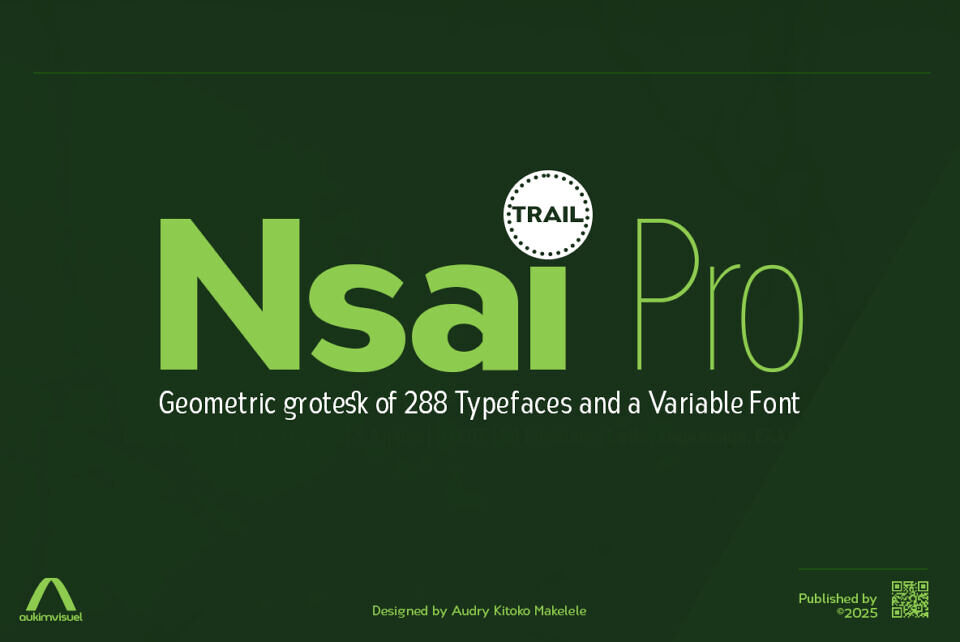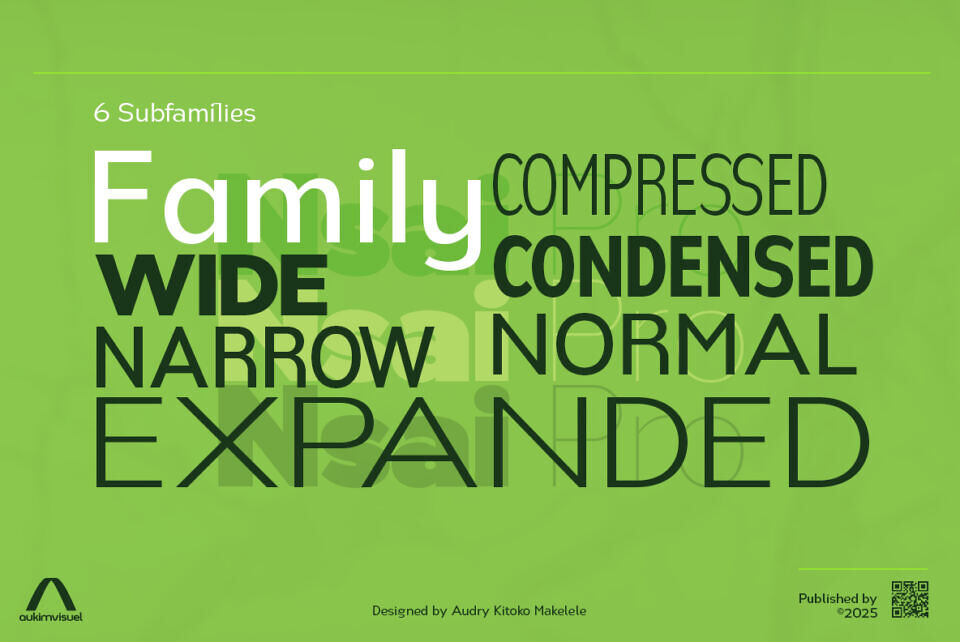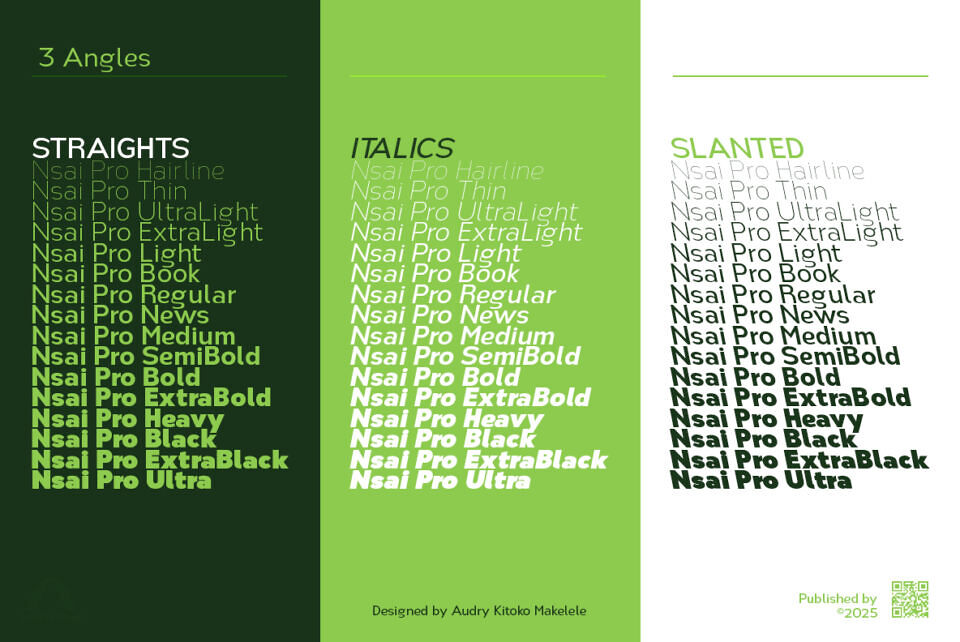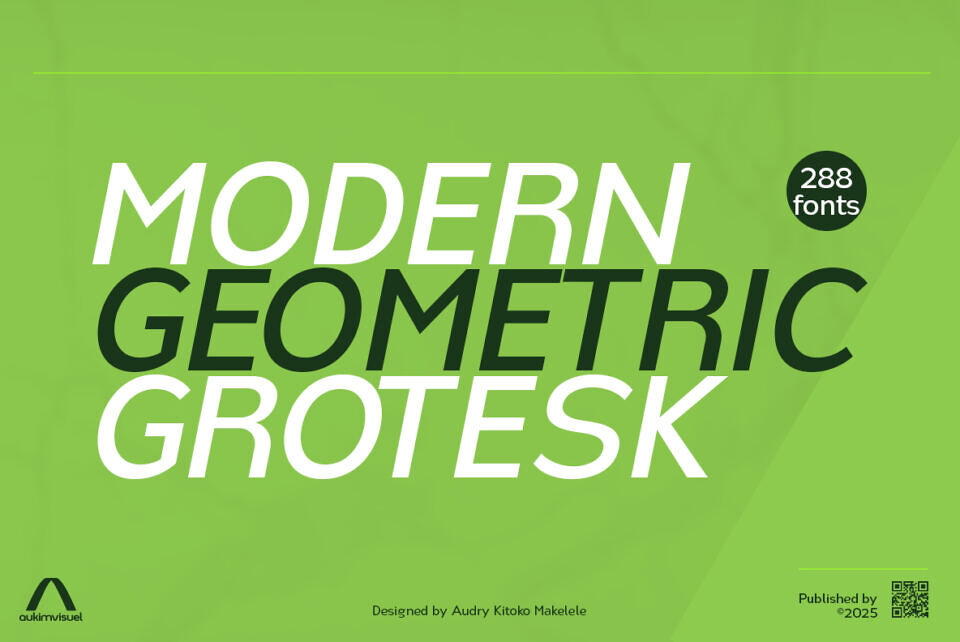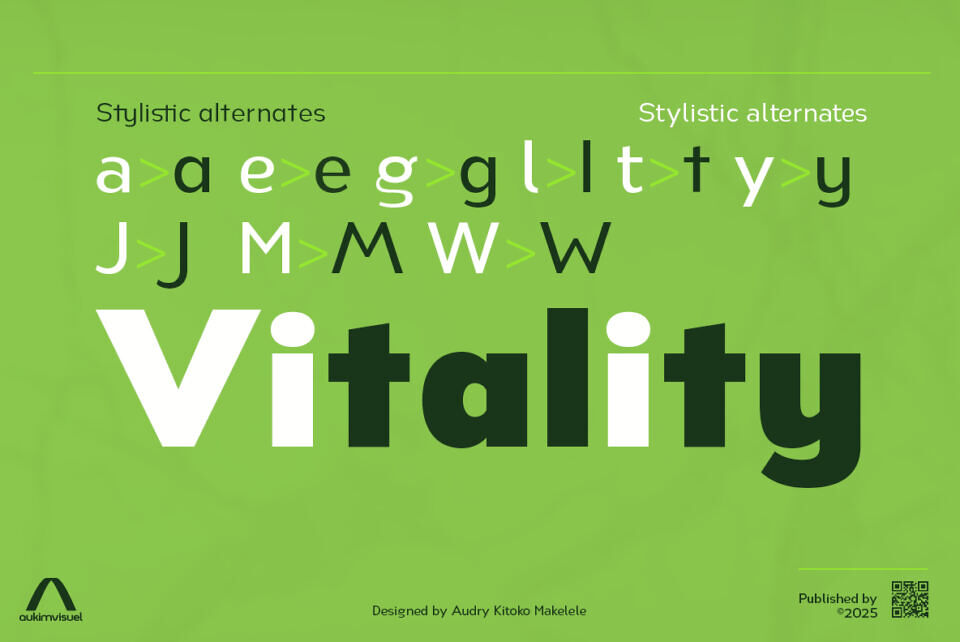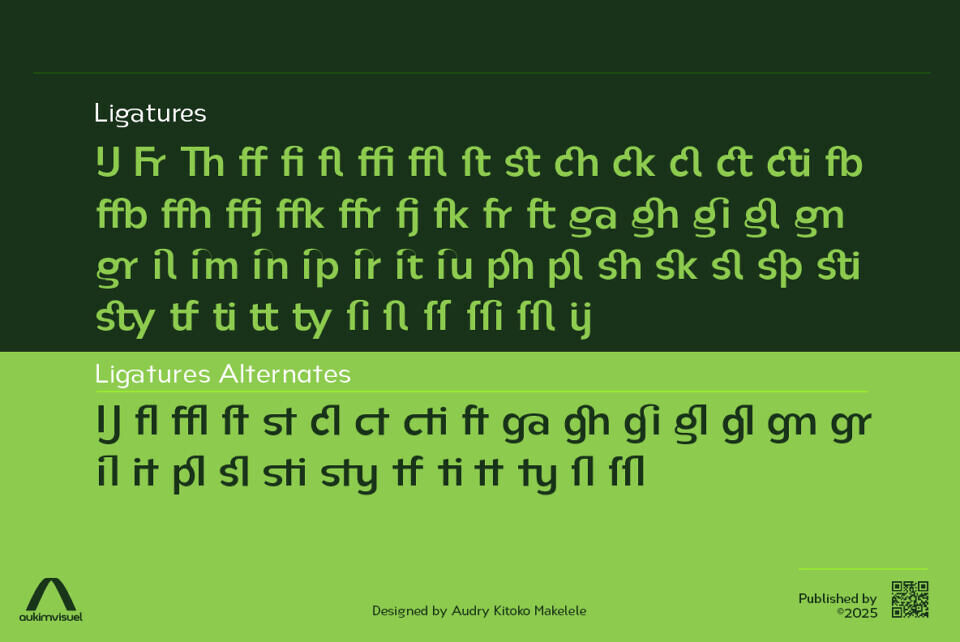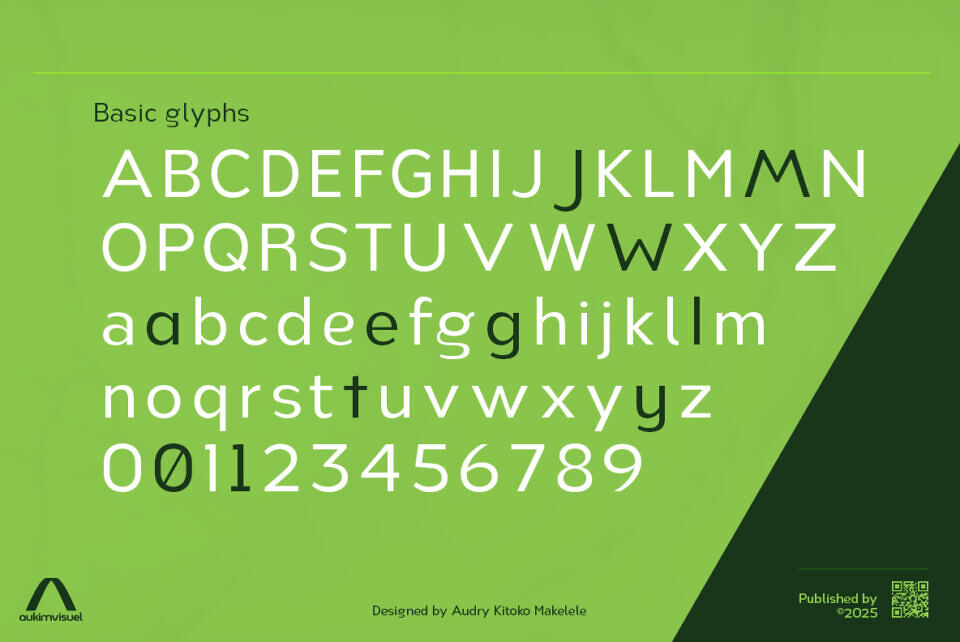
Nsai Pro is a high-performance typeface family designed for maximum clarity, versatility, and global reach. Evolved from the original Nsai design, it offers refined structure and precision for contemporary graphic environments.
With 3,750 glyphs, Nsai Pro supports Latin (including IPA), Cyrillic, Greek, Nko, and Coptic scripts, plus Roman numerals, currency symbols, pictograms, and signage — enabling seamless multilingual and symbolic communication.
It features a robust OpenType system with 49 features, including stylistic sets, ligatures, regional forms, tabular figures, and more — ensuring professional-level control and adaptability.
Offered in six widths (Compressed to Expanded) and sixteen weights (Hairline to Ultra), Nsai Pro delivers exceptional modularity, allowing fine-tuned typography across media and scale.